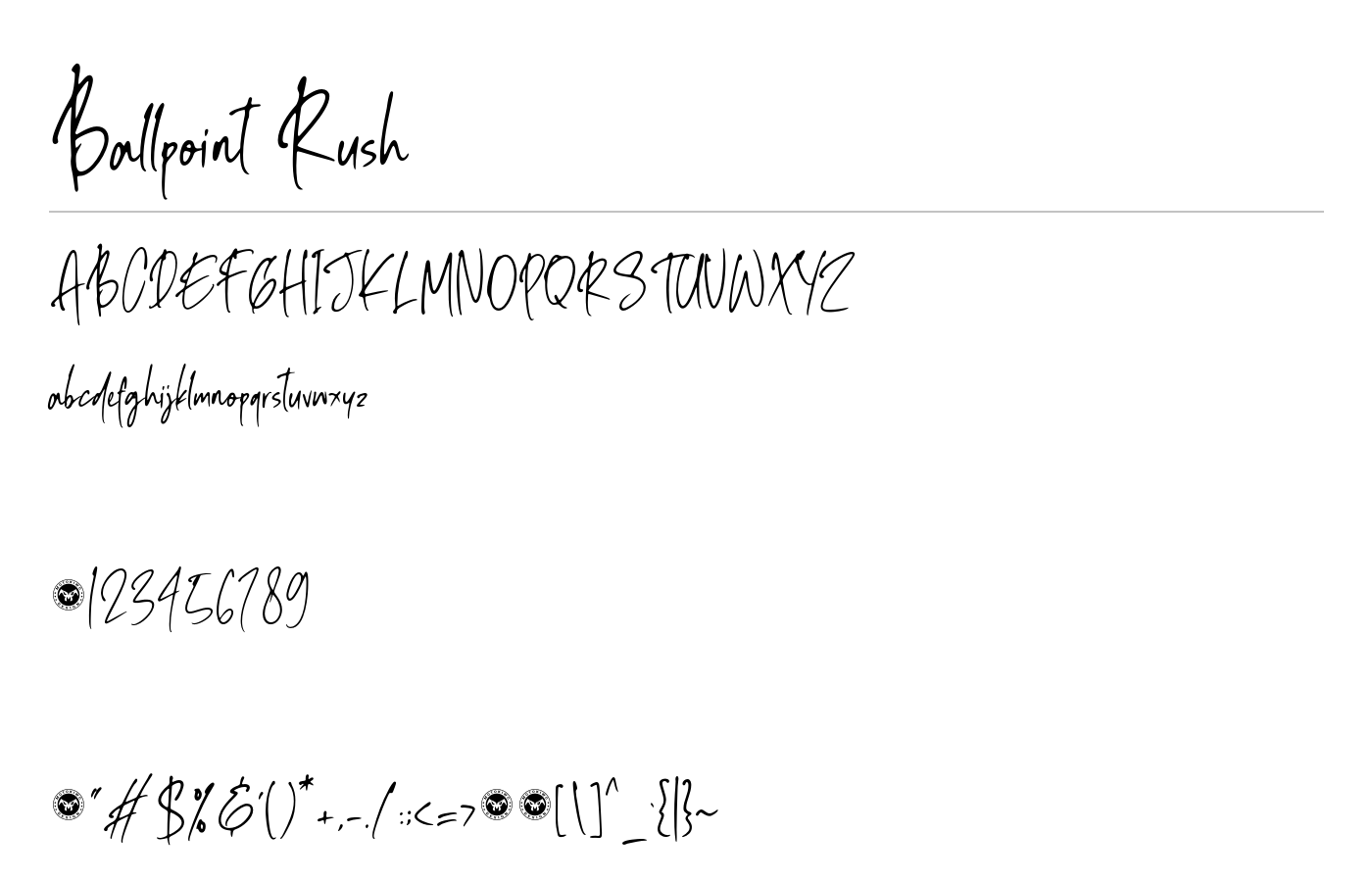
Ballpoint Rush is a lively handwritten script font with a casual, quick-drawn style that mimics natural ballpoint pen writing. Its narrow, tall letterforms with slight irregularities and subtle stroke variations create an authentic, personal feel, making it great for informal branding, creative projects, and playful headlines. This font works especially well where a spontaneous, artistic touch is needed to convey friendliness and approachability.
Ballpoint Rush Font
About Ballpoint Rush Font
| Font family | Ballpoint Rush Font |
| Designer | Anton Cahyono |